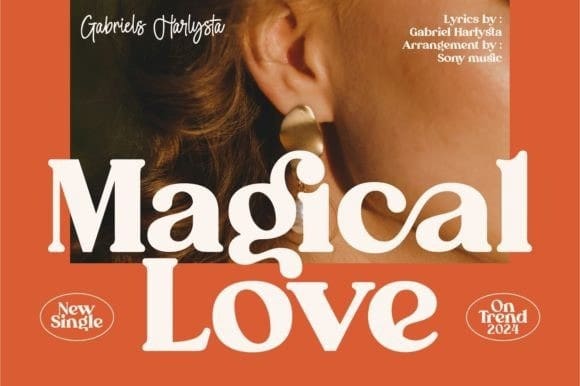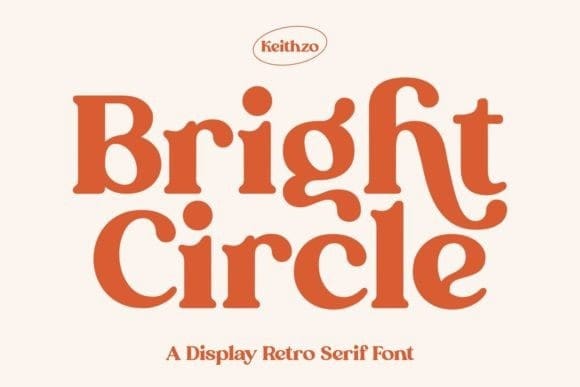
Bright Circle Font
Bright Circle Font is a lovely retro display font exuding warmth and nostalgia. With its charming curves and vintage-inspired design, it evokes a sense of joy and playfulness. Perfect for retro-themed projects, signage, posters, and branding, it adds a touch of whimsy and personality to any creative endeavor.